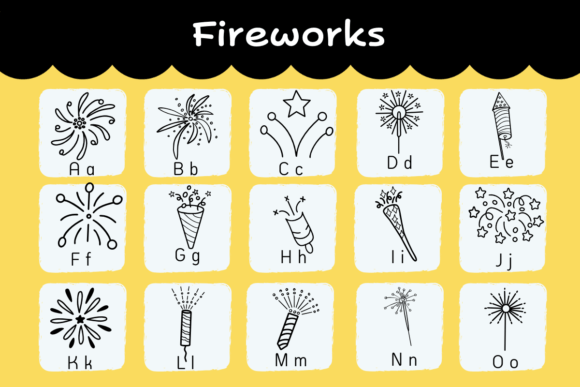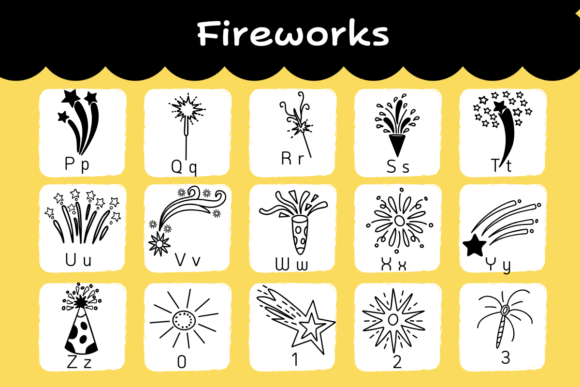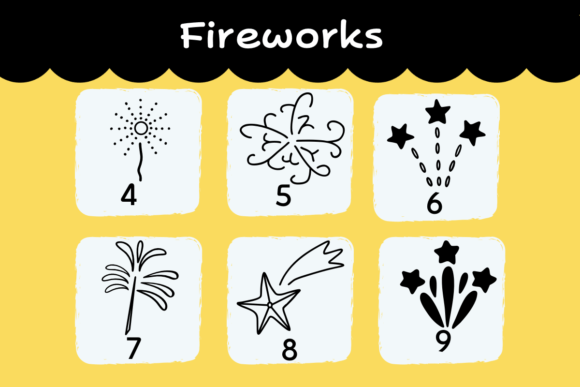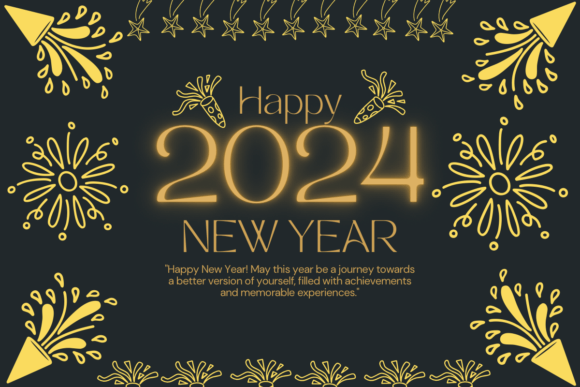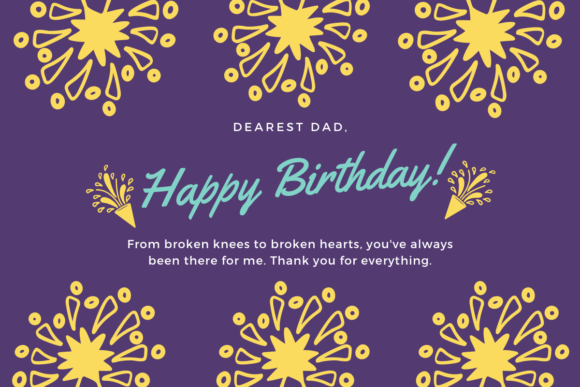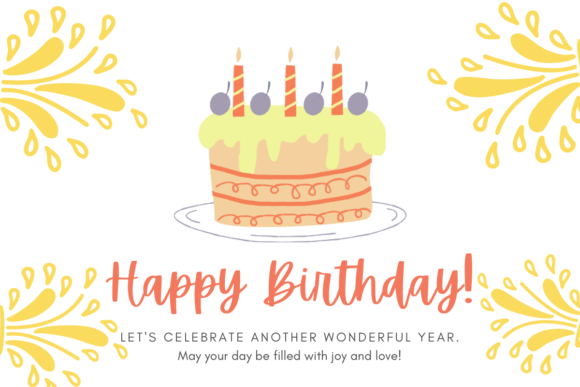
Fireworks Font: Add a Touch of Celebration to Your Designs
Are you looking for a font that can add a burst of excitement to your designs? Look no further than the Fireworks Dingbat Font! This fun and playful font is filled with images of fireworks, making it perfect for creating festive and celebratory designs. In this article, we’ll take a closer look at the Fireworks Font and explore its features, uses, and benefits.
What is Fireworks Dingbat Font?
Fireworks Dingbat Font is a unique and creative font that features bright and festive firework illustrations for each letter. This font is designed to make your text look like a celebration, adding a touch of excitement and joy to any design. Whether you’re creating invitations, party decorations, or social media graphics, the Fireworks Font is sure to make your designs stand out.
Features of Fireworks Font
• Festive Firework Illustrations: Each letter in the Fireworks Font is decorated with bright and colorful firework illustrations, making it perfect for celebratory designs.
• Playful and Fun: The Fireworks Font has a playful and fun vibe, making it ideal for designs that require a lighthearted and festive touch.
• Versatile: The Fireworks Font can be used for a wide range of designs, from invitations and party decorations to social media graphics and more.
Uses of Fireworks Font
The Fireworks Font is perfect for a variety of design projects, including:
• Invitations: Add a touch of celebration to your invitations with the Fireworks Font.
• Party Decorations: Use the Fireworks Font to create festive party decorations, such as banners, garlands, and more.
• Social Media Graphics: Add a burst of excitement to your social media graphics with the Fireworks Font.
• Event Branding: Use the Fireworks Font to create a festive and celebratory brand identity for your events.
Benefits of Using Fireworks Font
Using the Fireworks Font can bring a range of benefits to your designs, including:
• Unique and Creative: The Fireworks Font is a unique and creative font that can help your designs stand out.
• Festive and Celebratory: The Fireworks Font adds a touch of festivity and celebration to any design.
• Easily Customizable: The Fireworks Font is easily customizable, allowing you to adjust the font size, color, and more to suit your design needs.
Tips for Using Fireworks Font
Here are some tips for using the Fireworks Font:
• Use it Sparingly: Use the Fireworks Font sparingly to avoid overwhelming your design.
• Pair it with Other Fonts: Pair the Fireworks Font with other fonts to create a unique and visually appealing design.
• Experiment with Colors: Experiment with different colors to find the perfect combination for your design.
The Fireworks Dingbat Font is a fun and playful font that can add a burst of excitement to your designs. With its festive firework illustrations and easy-to-use design, it’s perfect for creating celebratory designs that stand out. Whether you’re a designer or crafter, the Fireworks Font is a great addition to your font collection. So why not give it a try and add a touch of celebration to your designs?